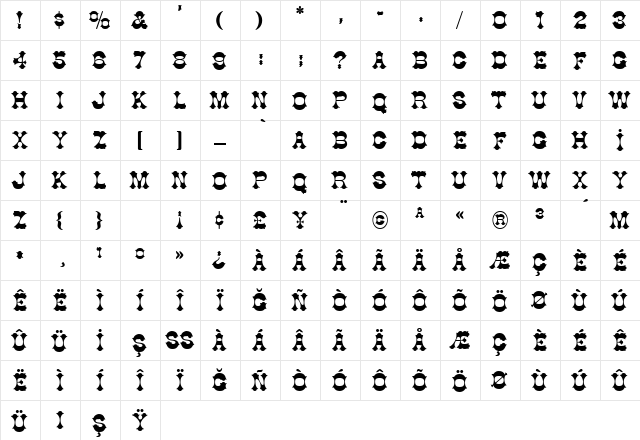
TR Cottage Plain
Design Context for TR Cottage Typeface
TR Cottage is a composed and adaptable typeface that performs quietly and consistently across a wide range of design contexts.